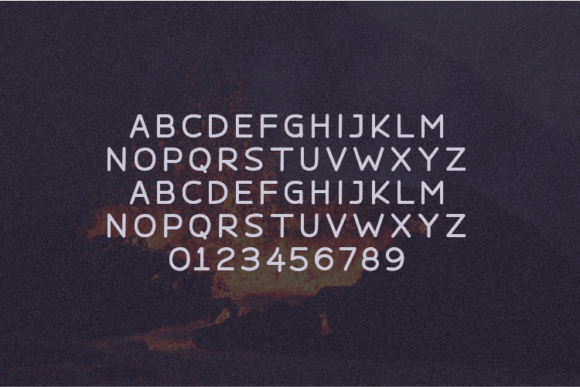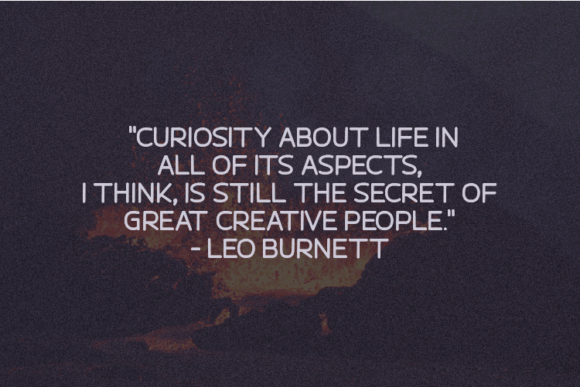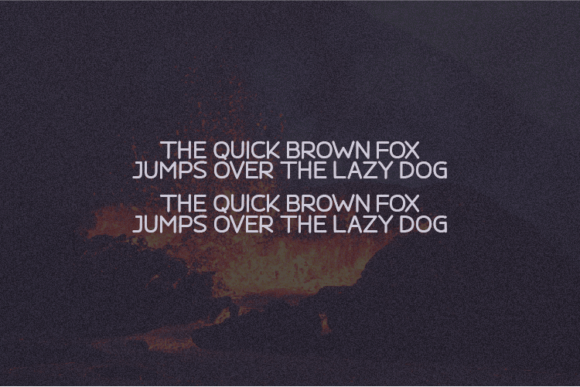
Introduction to Kristine Font
Have you ever been working on a creative project, pouring your heart and soul into it, only to realize that the perfect font is missing? That’s exactly what happened to many designers when they stumbled upon the unique and captivating Kristine Font. This natural sans serif font is a game-changer for any design project, from quotes and notes to product design and beyond.
What sets Kristine Font apart from other fonts is its transparent background, allowing it to seamlessly blend with any design element. As a valuable design resource, it’s perfect for designers looking to add a touch of elegance and sophistication to their creative projects. And the best part? It’s available for free download, making it an accessible high-quality font for designers of all levels.
Key Features of Kristine Font
- High-quality design resource ideal for creative projects, offering a unique and elegant aesthetic.
- Transparent background, allowing for seamless integration into various design elements.
- Features a clean and sophisticated design, making it perfect for use in logos, branding, and other creative projects.
Honest Review: Kristine Font
As a designer, I’m always on the lookout for high-quality design resources that can elevate my creative projects. Recently, I stumbled upon the Kristine Font, and I must say, it’s been a game-changer. ✨
Here are some of the features that make the Kristine Font stand out:
- High-quality design with precise details
- Perfect for use in logos, headings, and body text
- Works well with a variety of design styles
Overall, I’m thoroughly impressed with the Kristine Font. It’s a valuable addition to any designer’s toolkit, and I highly recommend it for any creative project. With its high-quality design and versatility, it’s sure to become a staple in your design arsenal.
Kristine Font is a high-quality, versatile design resource ideal for creative projects requiring a touch of elegance. This free download offers a transparent background, making it perfect for overlaying on images or using as a standalone text element.
Tips for Getting the Most Out of Kristine Font
For optimal results, use Kristine Font in conjunction with high-quality images or graphics. Experiment with different font sizes, colors, and styles to achieve a unique look for your design project.
Kristine Font is suitable for a wide range of creative projects, including:
- Business cards and marketing materials.
- Event signage and displays.
Is Kristine Font suitable for large-scale printing?